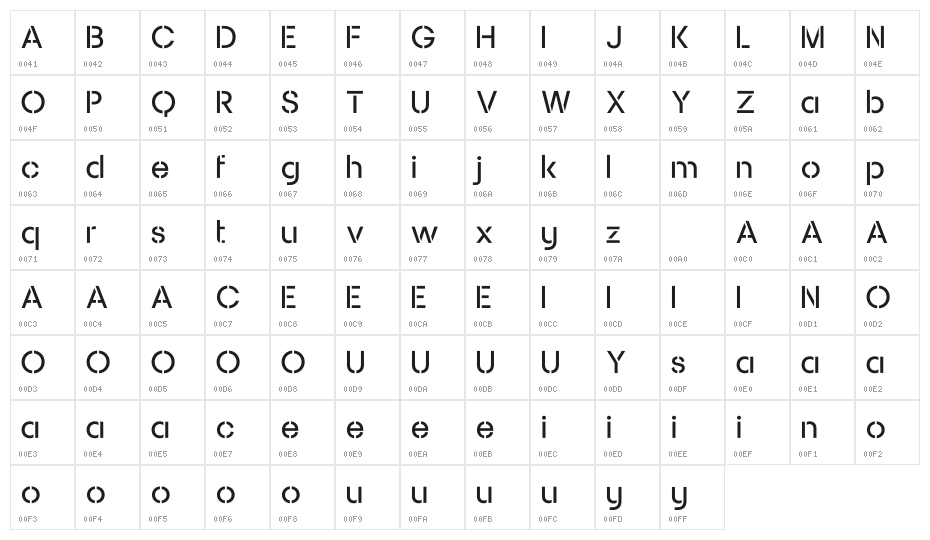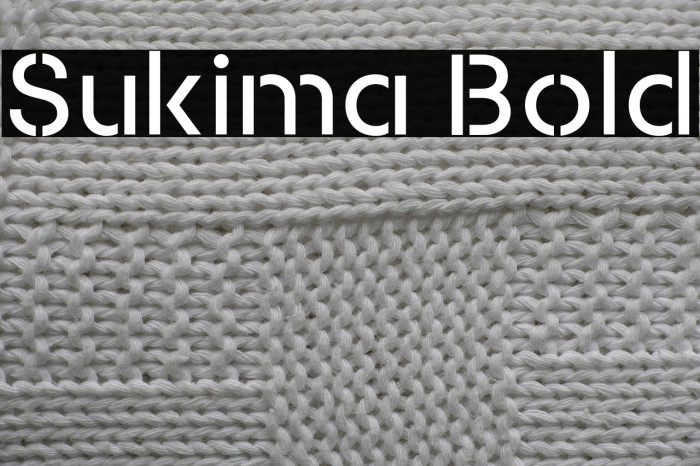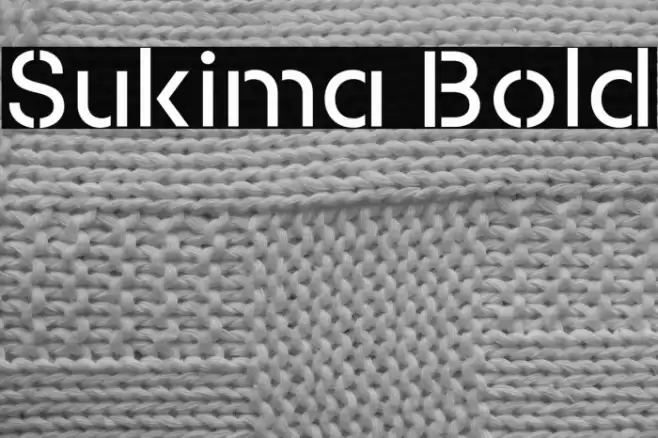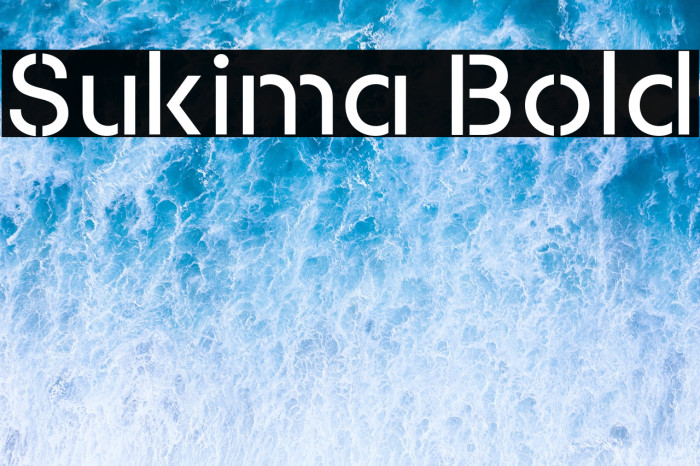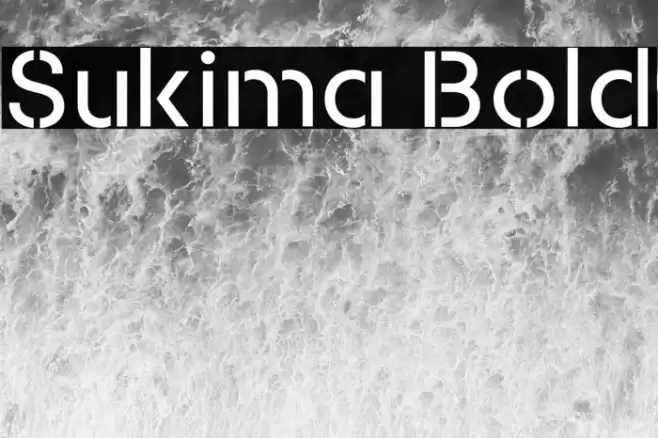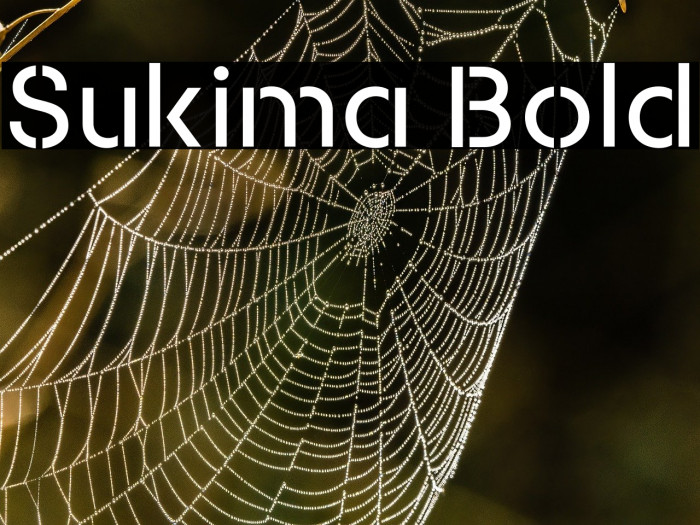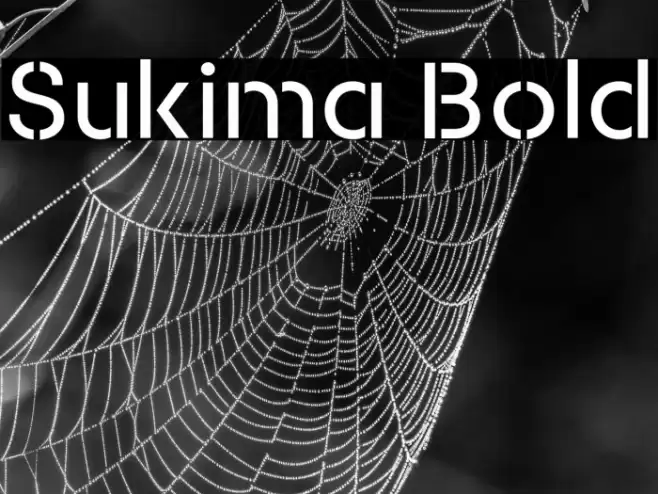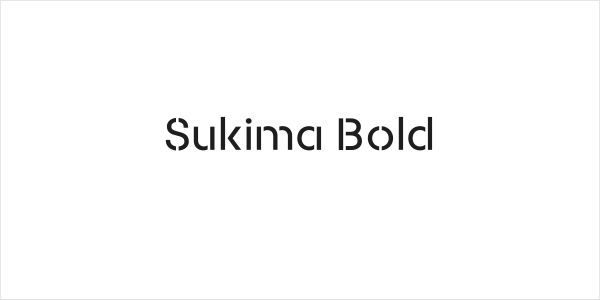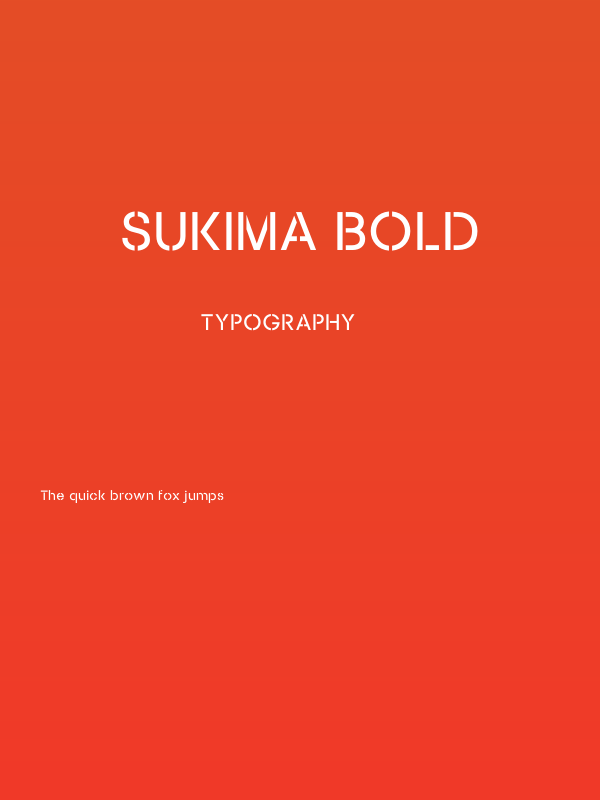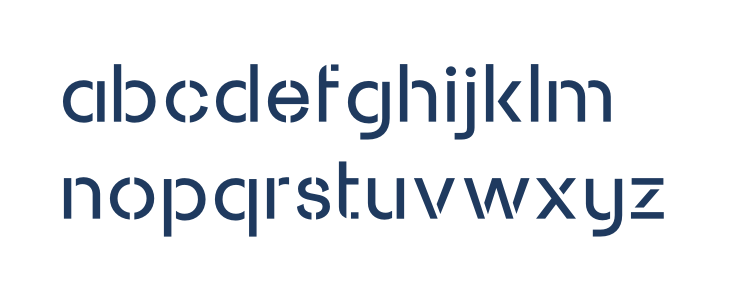
Sukima Bold Font
Sukima Bold Description
This font features a modern and geometric design with a unique twist. Each character is crafted with precision, incorporating distinct cuts and gaps that create a striking visual effect. The uppercase and lowercase letters maintain a consistent style, emphasizing clean lines and bold shapes. The font's structure is both contemporary and artistic, making it ideal for creative projects that require a standout typeface. Its bold appearance ensures readability while adding a touch of sophistication and innovation.
| Proposed Projects | Ideal for branding, posters, headlines, and digital media where a modern and artistic touch is desired. |